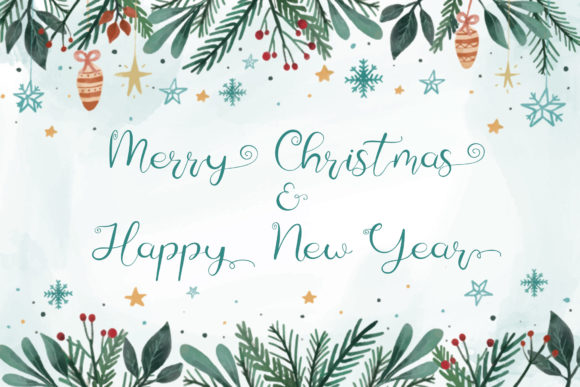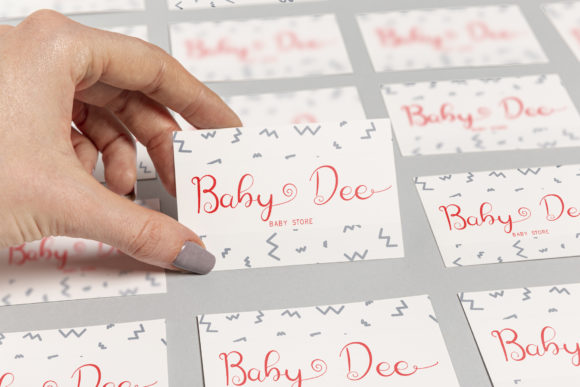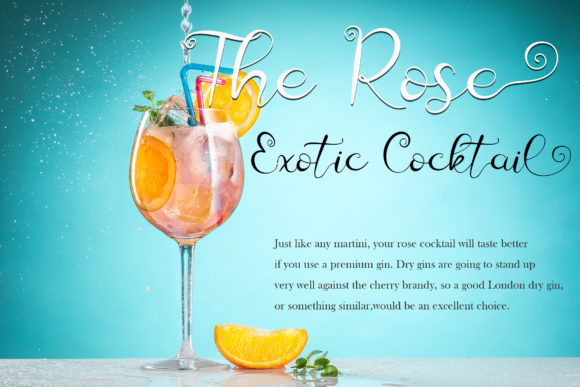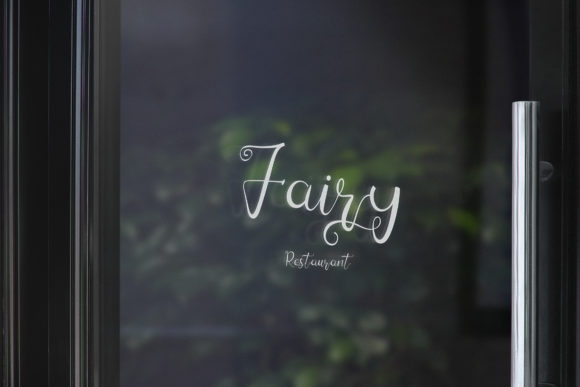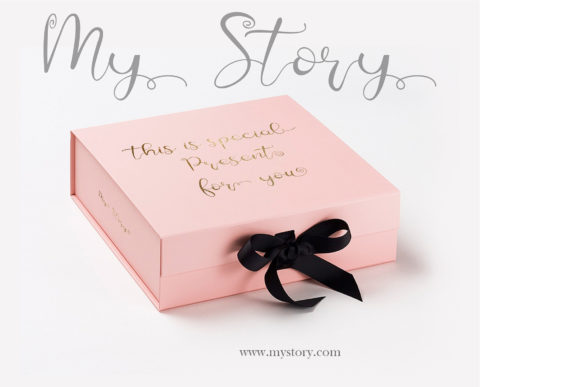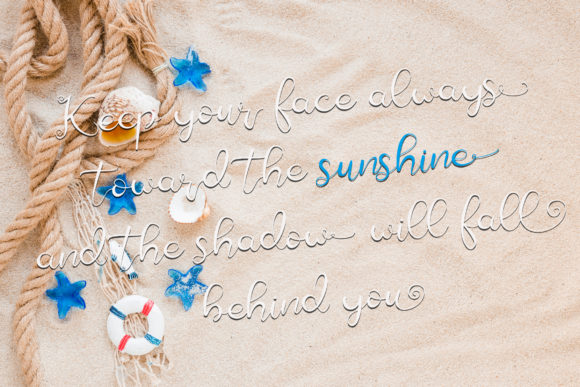
Introduction to My Story Font
Have you ever been working on a creative project and stumbled upon the perfect font that elevates your design to the next level? For me, that moment came when I discovered My Story Font. Its smooth lines and elegant touch instantly caught my attention, and I knew I had to learn more about this beautiful script.
As a designer, I appreciate fonts that offer versatility and flexibility, and My Story Font certainly delivers. With its PUA encoded features, I can access all of the glyphs and swashes with ease, making it a valuable resource for any creative project. Whether I’m designing a logo, a wedding invitation, or a simple text overlay with a transparent background, My Story Font is always up to my high standards.
Key Features of My Story Font
- High-quality vector design with a transparent background, perfect for creative projects that require a unique touch.
- Includes a large character set with uppercase and lowercase letters, numbers, and punctuation marks, ideal for creating engaging typography.
- Designed with a modern and elegant aesthetic, suitable for a wide range of creative projects, from logos and branding to digital art and graphics.
Honest Review: My Story Font
I recently stumbled upon the My Story Font and I have to say, it’s been a game-changer for my creative projects. As a designer, I’m always on the lookout for high-quality fonts that can elevate my work.
Of course, no font is perfect, and the My Story Font has a few limitations:
- Some users may find it too ornate or distracting
- It may not be suitable for all types of projects (e.g. corporate or formal designs)
Overall, I’m thoroughly impressed with the My Story Font. It’s a fantastic addition to my design arsenal and I’m excited to see how I can use it in future projects.
For the most out of My Story Font, use it in combination with other design resources, such as graphics and images. Common use cases include creating invitations, social media posts, and marketing materials.
Alternatives to My Story Font
Aleo Font is a beautiful, elegant script font suitable for creative projects that require a high level of sophistication. It’s ideal for designs with a transparent background, making it perfect for wedding invitations, greeting cards, or any other project that demands a touch of luxury. Aleo Font is available for free download, making it an excellent design resource for designers on a budget.
Compared to My Story Font, Aleo Font offers a more refined and polished look, making it suitable for a wide range of creative projects. While My Story Font is more playful and casual, Aleo Font is perfect for designs that require a level of sophistication and elegance.
Lato Font is a modern sans-serif font that’s perfect for creative projects that require a clean and minimalist design. It’s ideal for designs with a transparent background, making it perfect for websites, mobile apps, or any other project that demands a modern and sleek look. Lato Font is available for free download, making it an excellent design resource for designers on a budget.